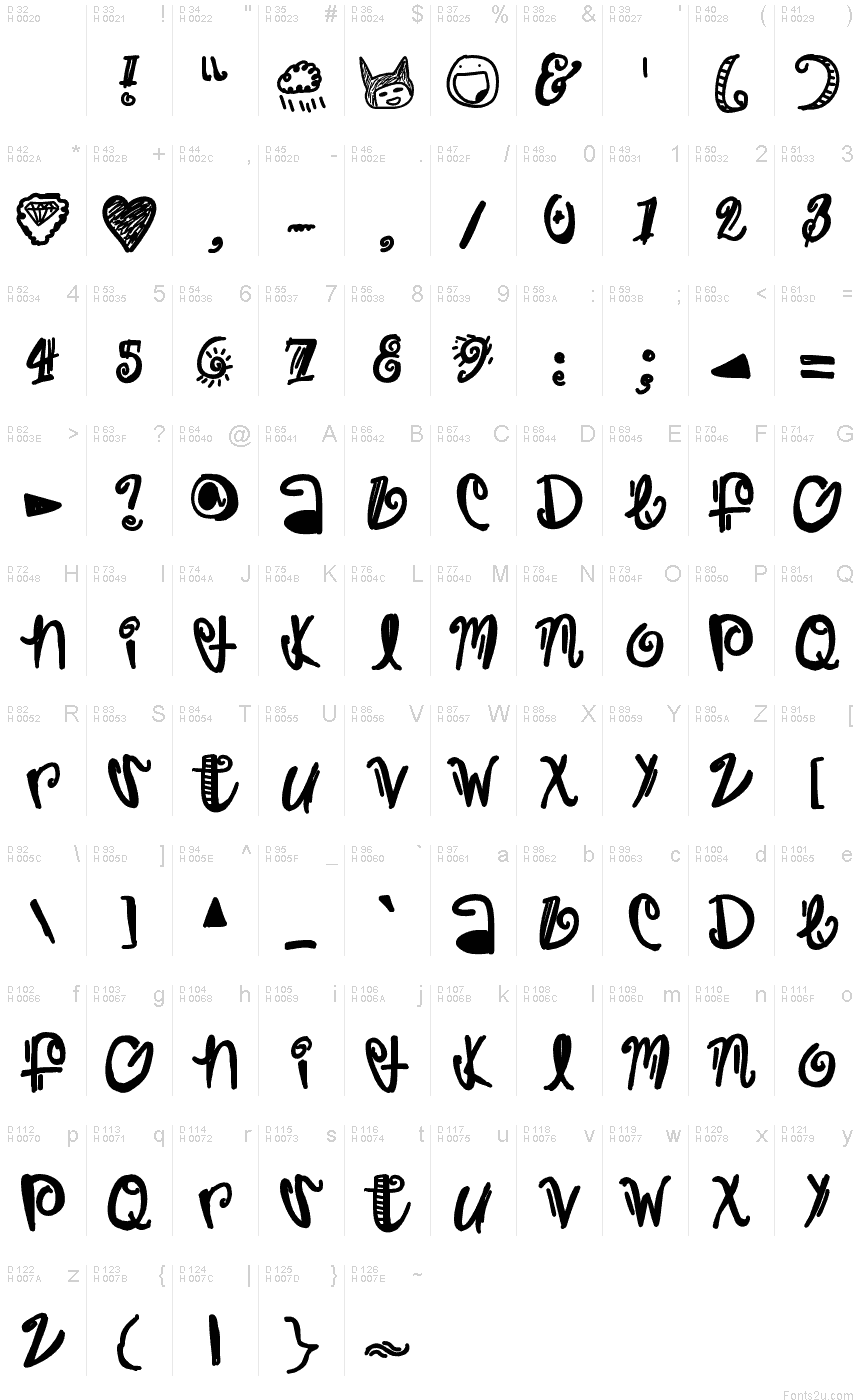
Trap is a free curly display font shaped by the restless movement and abrupt pressure changes of improvised hand lettering. The letters twist into dense, uneven, and deliberately unruly silhouettes.
On packaging and event posters, its oversized loops can suggest experimental fashion, independent underground music, or an eccentric nightclub identity. For magazine covers and game graphics, the coiling strokes can mingle with doodles, bold character art, and complex maze-like patterns until the lettering becomes part of the illustration.